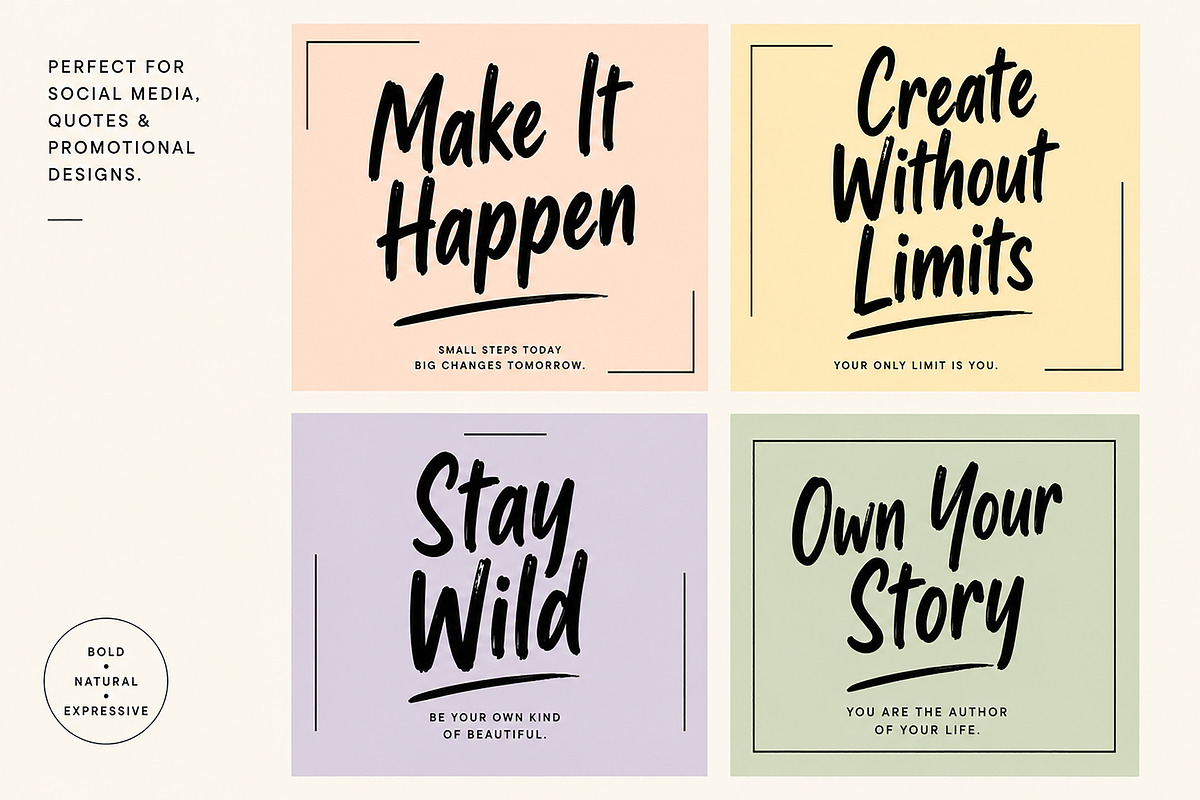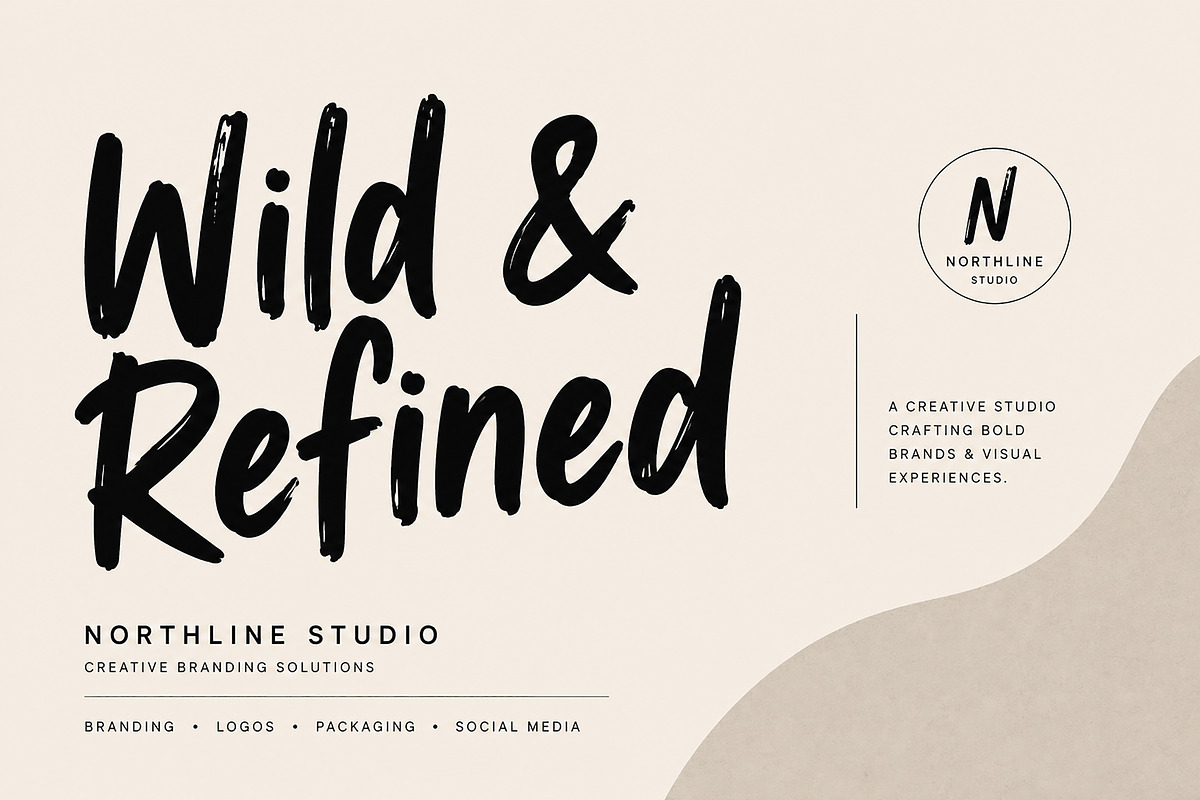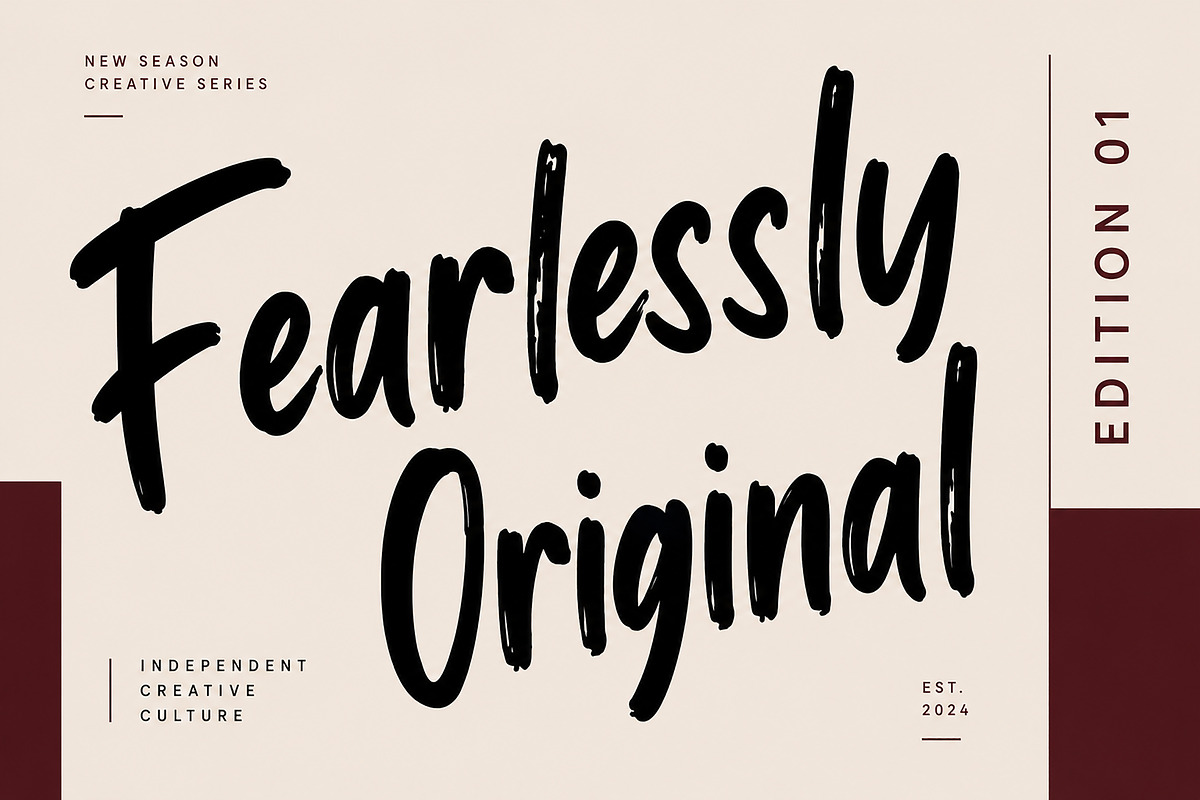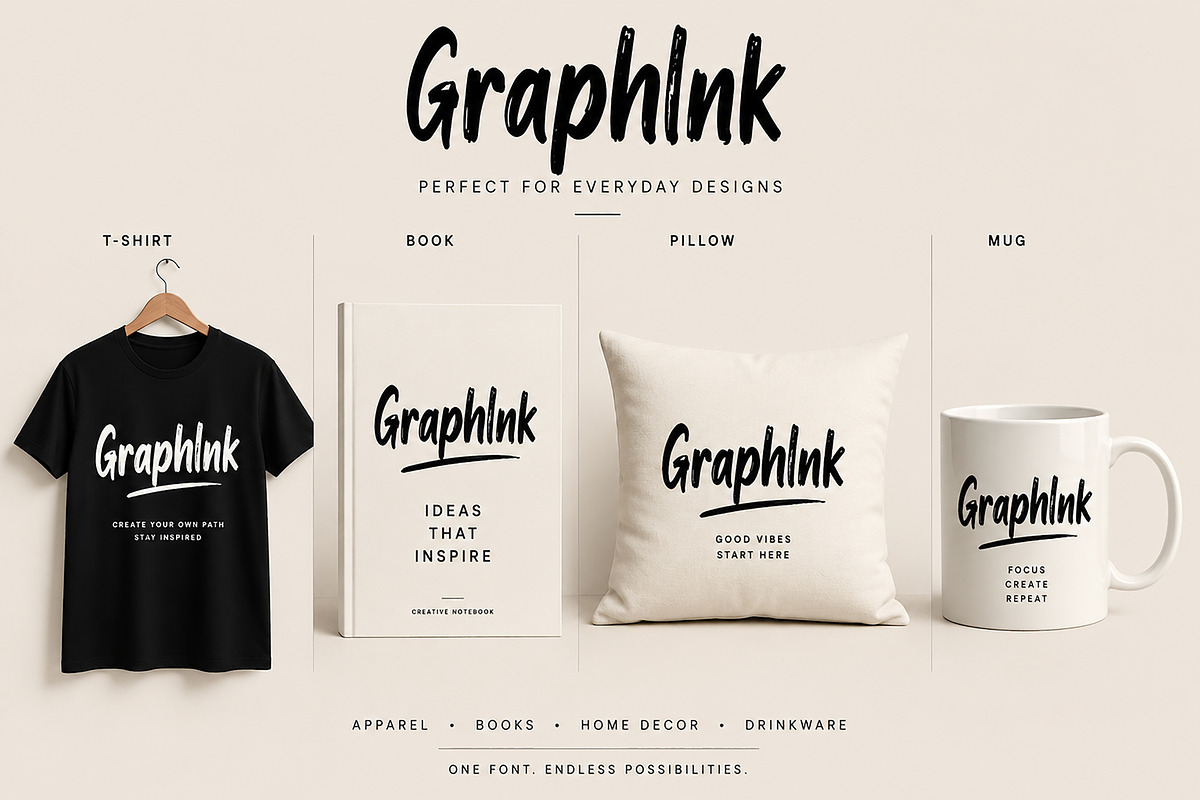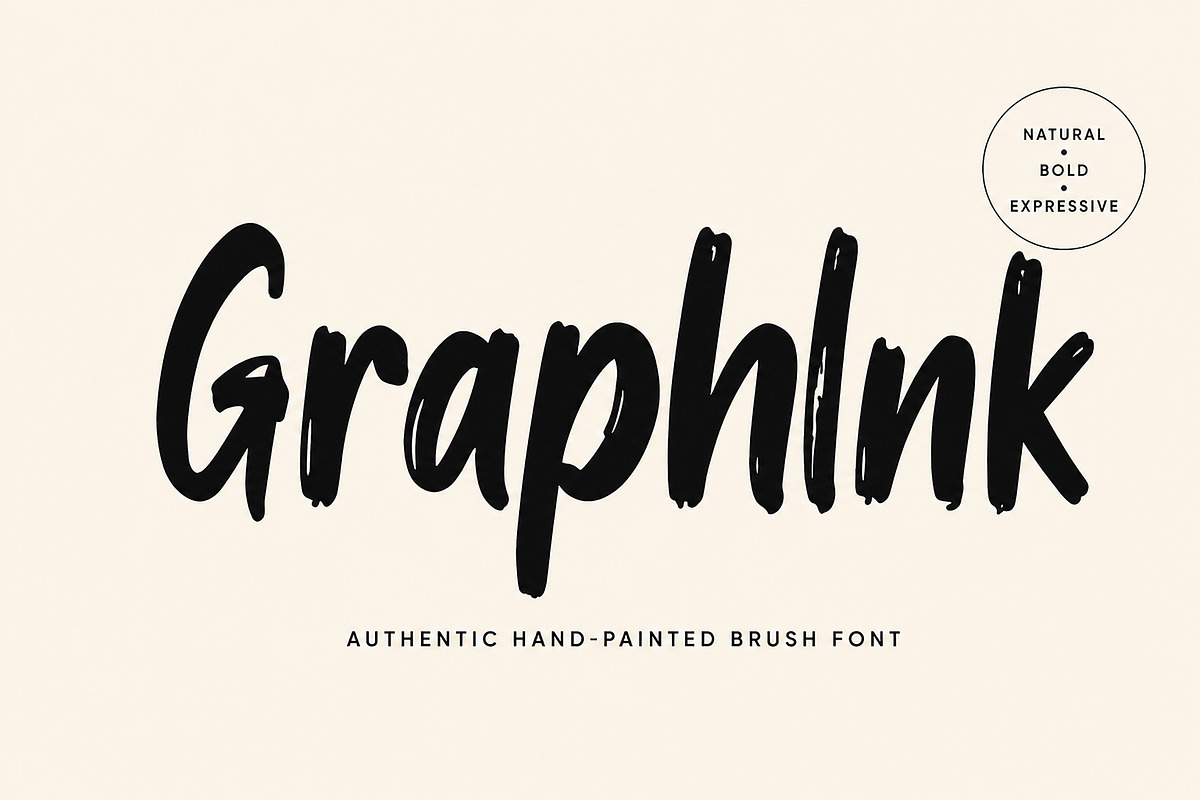
GraphInk
GraphInk – Authentic Hand-Painted Brush Font
Introducing GraphInk, an authentic hand-painted brush font crafted to bring bold energy, natural movement, and expressive character to your designs. Inspired by real brush lettering, GraphInk features confident strokes, organic imperfections, and a handcrafted feel that instantly grabs attention.
Whether you're creating a memorable logo, striking poster, stylish apparel, premium packaging, or engaging social media content, GraphInk delivers a modern handcrafted aesthetic while maintaining excellent readability.
Designed for creatives who want typography with personality, GraphInk is the perfect choice for branding, editorial projects, advertising, merchandise, and display designs.
Brand Identity
Fashion Branding
Streetwear
Clothing & Apparel
T-Shirt Designs
Posters
Editorial Headlines
Magazine Covers
Product Labels
Instagram Posts
Pinterest Graphics
YouTube Thumbnails
Marketing Materials
Event Posters
Quote Designs
Creative Studio Projects
Authentic Hand-Painted Brush Style
Bold & Expressive Letterforms
Natural Handcrafted Appearance
Strong Display Typeface
Clean & Easy to Read
Why Choose GraphInk?
GraphInk combines the expressive beauty of real brush lettering with the versatility of a professional display font. Every character has been carefully crafted to create bold, eye-catching typography that works beautifully across digital and print media.
From modern branding to promotional graphics, GraphInk helps your message stand out with confidence, creativity, and authentic handcrafted charm.